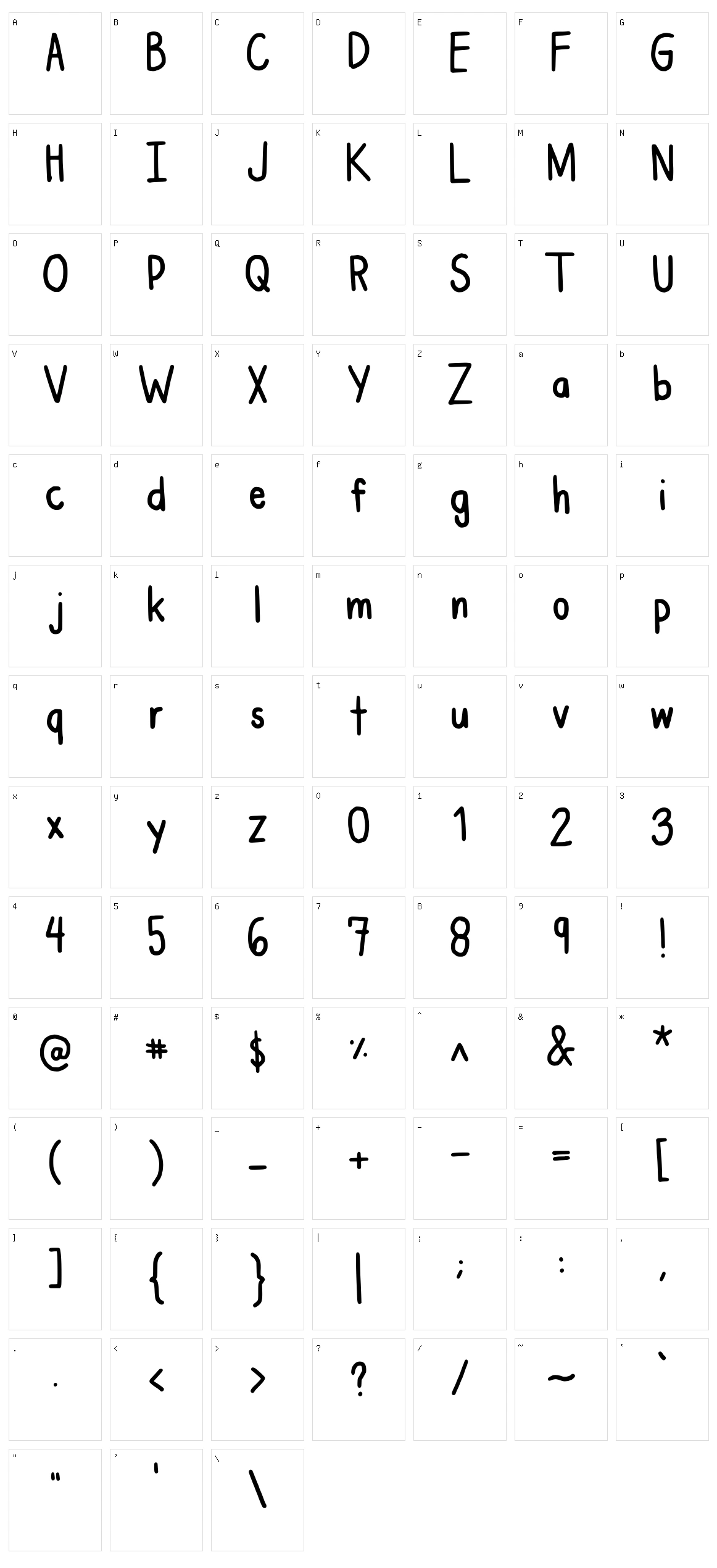
The free font Cookie Small Man is carefully designed by Bakedbeanst, showcasing a thoughtful balance of creativity and usability and falls under the Script font style. When you download the ZIP file, it contains only 27.25 KB of font files, making it lightweight and quick to download. Please review the license details below to understand permitted usage and distribution rights. If license information is not available, we recommend using this font for personal projects only or contacting the author directly for commercial usage permissions.